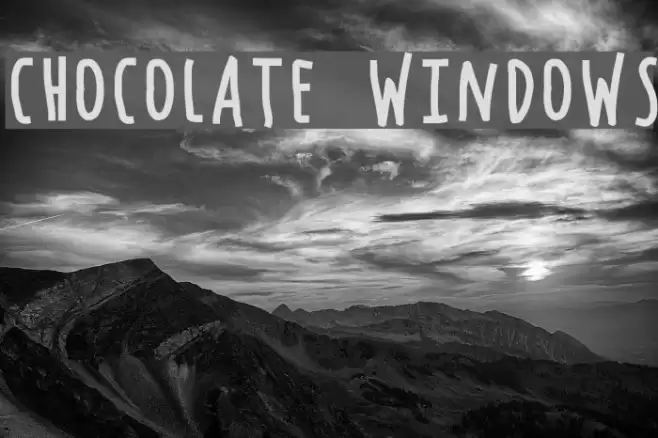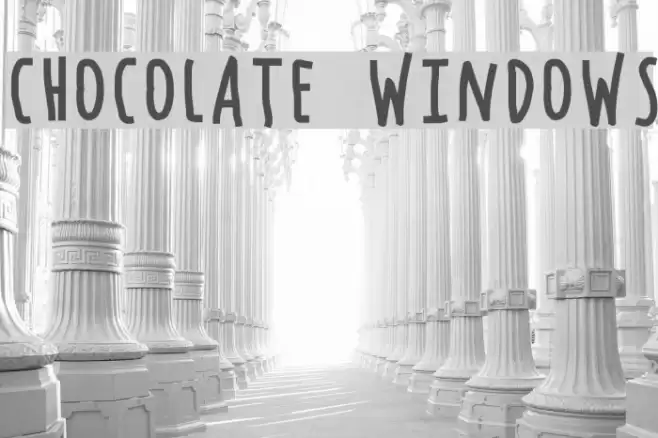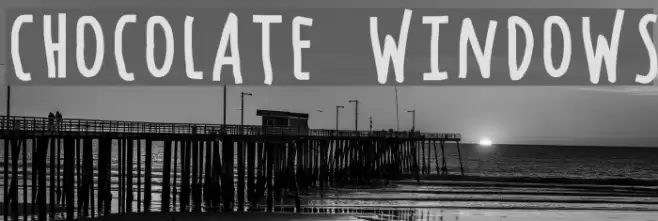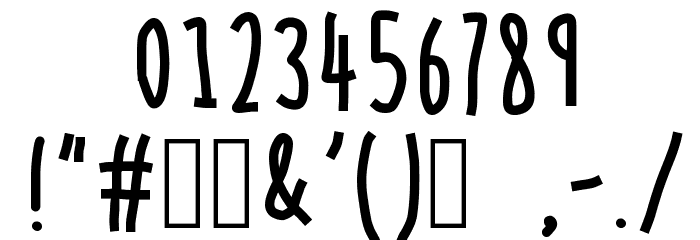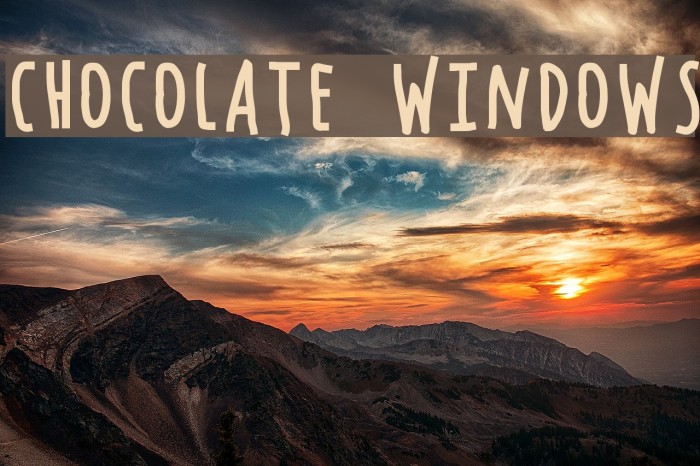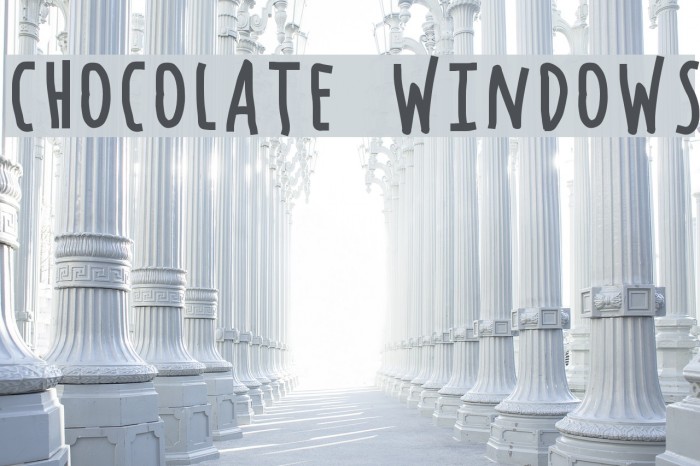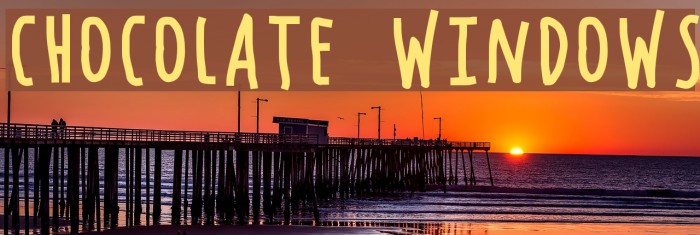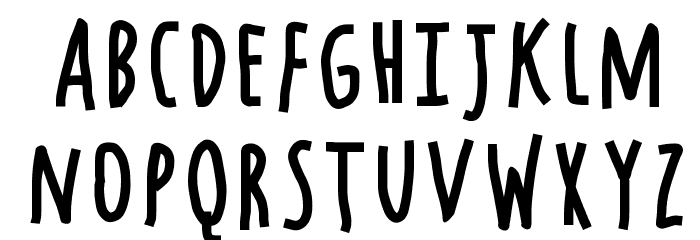
Chocolate Windows Font
Chocolate Windows Description
This font features a playful and informal style, characterized by its hand-drawn appearance. The letters are slightly irregular, with varying stroke widths that give it a lively and dynamic feel. The uppercase and lowercase letters maintain a consistent style, with rounded edges and a slight tilt that adds to its whimsical nature. The numbers and special characters follow the same design principles, ensuring a cohesive look across all glyphs. This font is ideal for projects that require a touch of personality and creativity, making it perfect for casual and fun applications.
A playful, hand-drawn font with irregular strokes and a whimsical style from Uncategorized fonts.
- Proposed Projects: Ideal for greeting cards, children's books, playful branding, and creative posters.
- Use Case: Headlines, Logos, Casual text